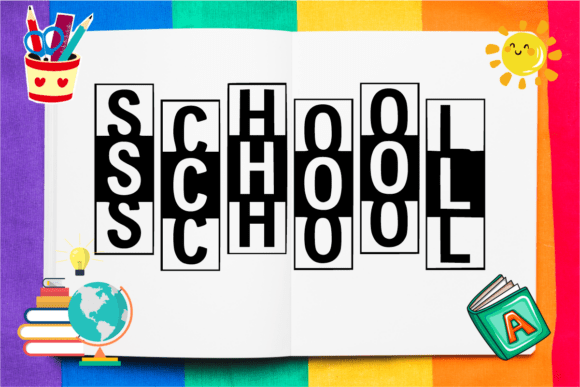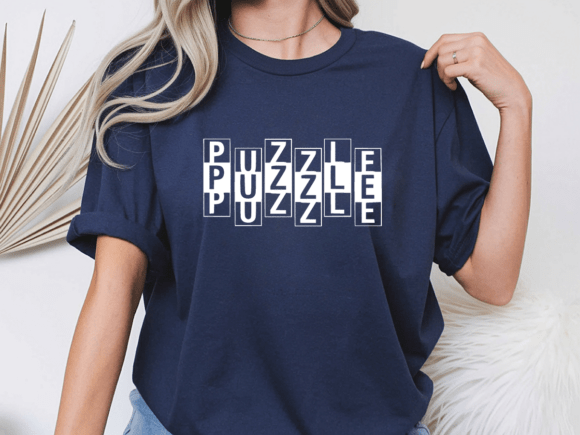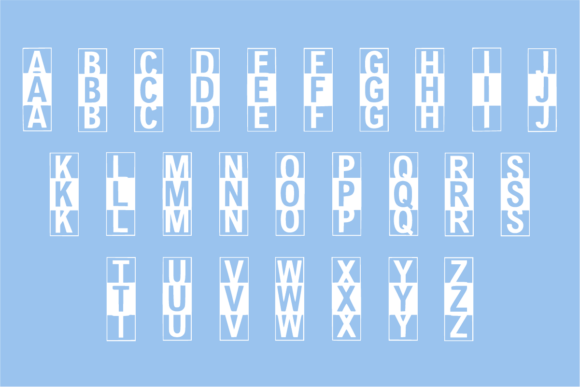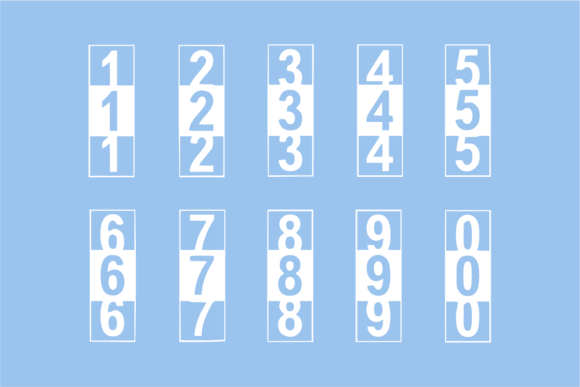
Level Up Your Designs with Box Book – The Ultimate Stacked Display Font!
Who else has spent hours agonizing over the perfect font for a project, only to settle for something that’s just “fine”? We’ve all been there. But what if you could take your designs to the next level with a font that’s not just visually striking, but also uniquely versatile? Enter Box Book Font, the game-changing display font that’s about to become your new best friend.
With its innovative stacked effect and clean, rectangular geometric box design, Box Book Font is the perfect choice for projects that need a modern, structured, and eye-catching look. Whether you’re designing for a school library, a modern brand, or fun DIY crafts, this font is designed to stand out and make a bold statement. And with its ease of use in cutting machines like Cricut and Silhouette, as well as professional graphic design in Canva or Procreate, you’ll be amazed at how quickly you can level up your designs with Box Book Font.
Box Book Font Key Features
- Unique Characteristics: The font family features a unique blend of modern and traditional elements, with clean lines, geometric shapes, and subtle nuances that make it highly readable and visually appealing.
Box Book Font Review
Overall, I found the Box Book Font to be a stylish and versatile sans-serif typeface that can add a modern touch to various designs. ✨ One of its strengths is its clean and simple aesthetic, making it perfect for use in logos, titles, and body text. The font also features a wide range of weights and styles, allowing for a high degree of customization.
The font’s scalability is also impressive, as it remains legible even at small sizes. Additionally, its versatility makes it suitable for use in a variety of contexts, from digital interfaces to print materials.
However, I did encounter some limitations with the Box Book Font. ⚠️ One of its main drawbacks is its lack of character set support, which can make it difficult to use in languages that require a wider range of characters. Additionally, the font’s italic styles can appear somewhat inconsistent, which may detract from the overall aesthetic.
Despite its limitations, I believe the Box Book Font is a solid choice for designers looking for a modern and versatile sans-serif typeface. With its clean design, scalable nature, and wide range of weights and styles, it’s a great option for a variety of design projects. However, its limitations may make it less suitable for use in certain contexts, such as multilingual designs.
- Modern and versatile sans-serif typeface
- Clean and simple aesthetic
- Wide range of weights and styles
- Scalable and legible even at small sizes
- Limited character set support
- Inconsistent italic styles
Tips for Getting the Most Out of Box Book Font
For best results, use Box Book Font in combination with bold or italic text to create visual interest. Experiment with different font sizes and colors to add emphasis and hierarchy to your text.
Box Book Font is ideal for:
- Book covers and book design
- Social media graphics and ads